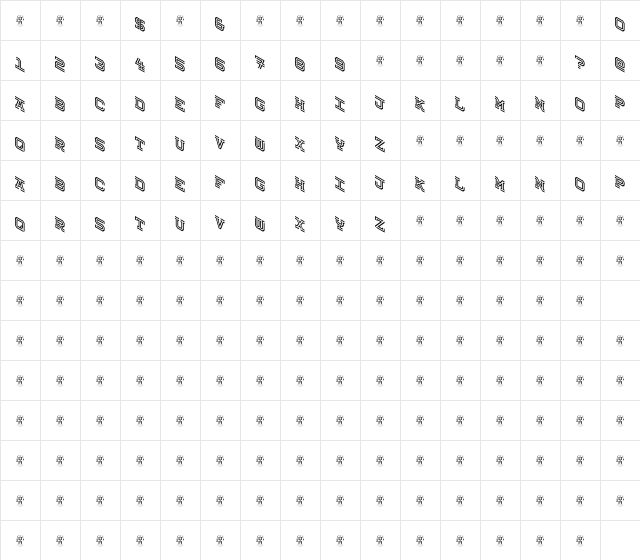
Hokjesgeestcube Regular
| Foundry | Tup Wanders |
| Designer | Tup Wanders |
Design Context for Hokjesgeestcube Typeface
Hokjesgeestcube is a composed and adaptable typeface that performs quietly and consistently across a wide range of design contexts.